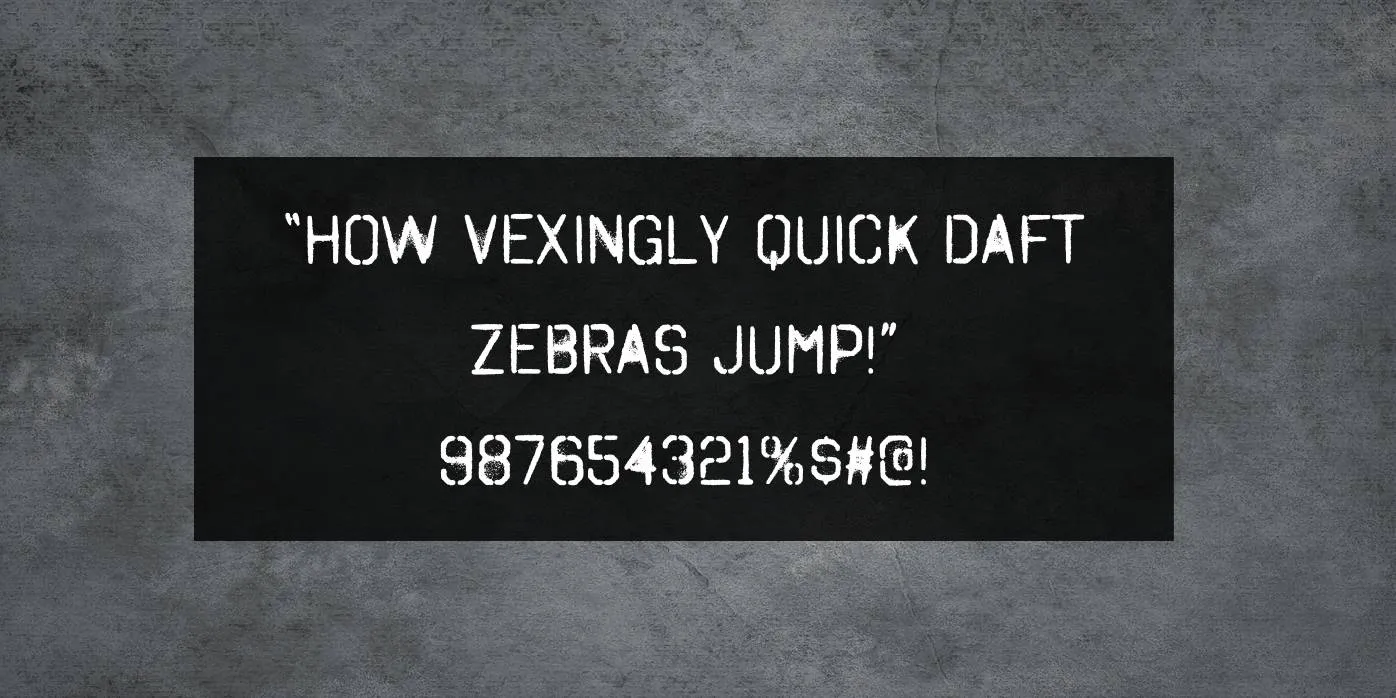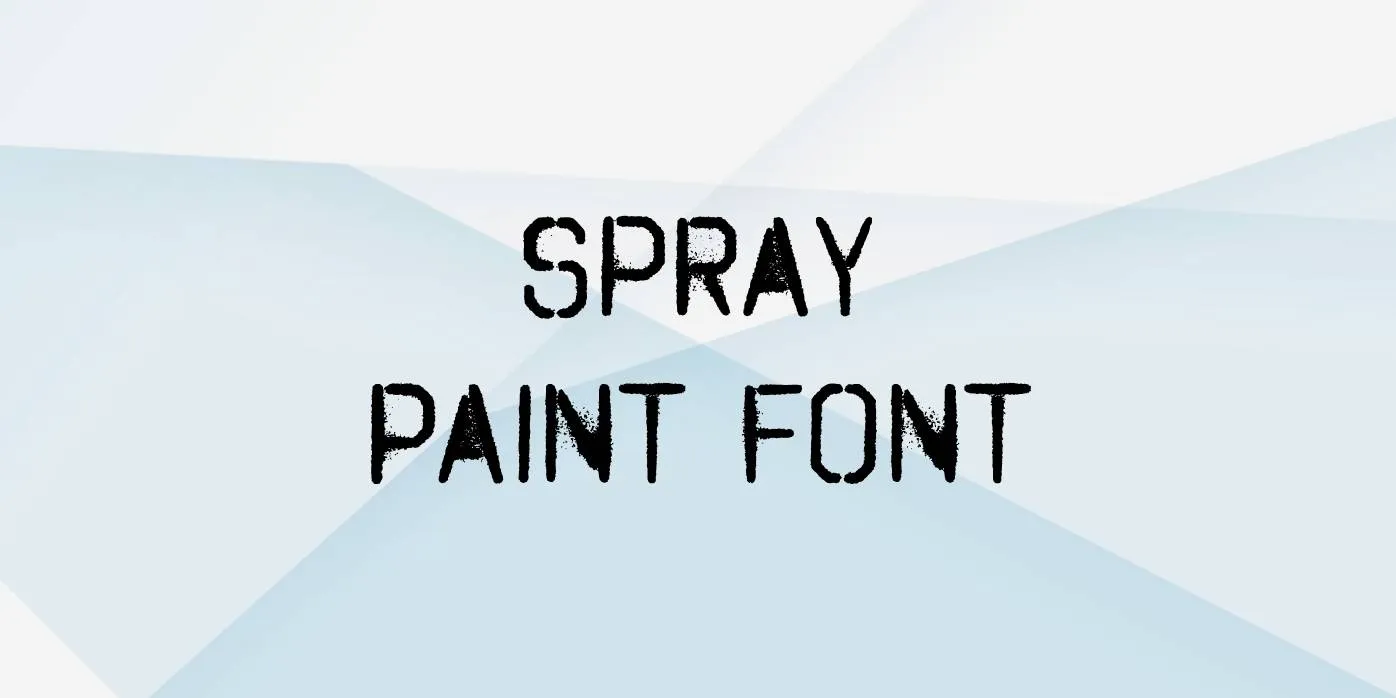
Spray Paint Font
Today we introduce a modern style typeface that has a brushy-type texture named Spray Paint Font. This stunning font family was created by Typodermic. It belongs to the display font family. It has very bold and big characters that give a very rough texture appearance to your design.
It comes in a single weight that comprises more than 200 characters including uppercase, lowercase, symbols, punctuations, alternates, and special characters. This font is not available on Google Store but you can get similar ones there. Its large range of glyphs gives designers plenty of options when creating logos or other designs in a variety of languages. Usage This font is perfect for any project that needs a bold and aesthetic vision.
It is commonly used for making banners and posters because of its boldness and attractiveness. This font is also compatible with all of your mac and Windows devices. This stunning typeface has a lot of advanced uses but generally, it is used for making website designs, printing purposes, logo designs, and much more. You can also combine this font with another unique typeface like impact font to make a stunning pair.
No, This is a monospaced font. Monospaced fonts are fonts where each character takes up the same amount of space. Where can I use the Spray Paint Font? This font is perfect for any project that needs a bold and aesthetic vision.